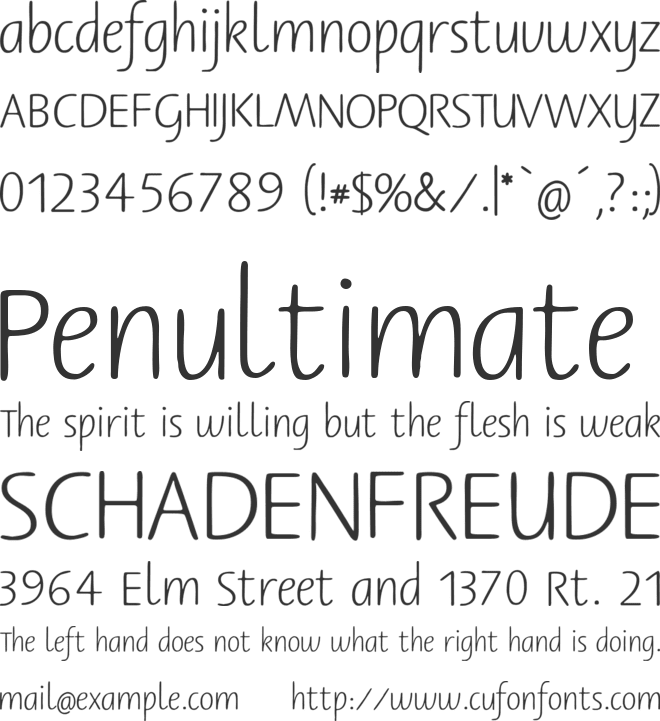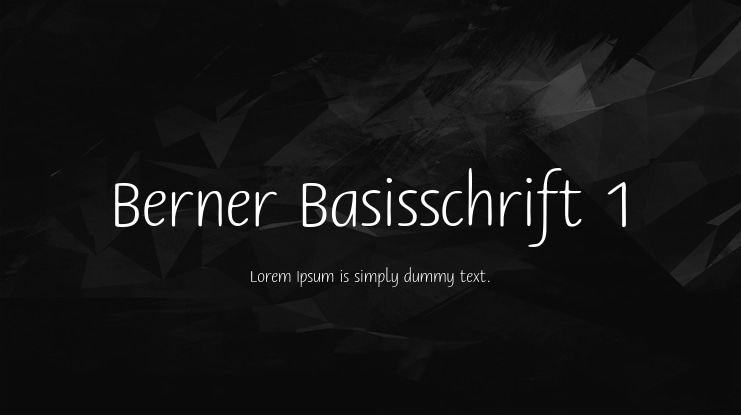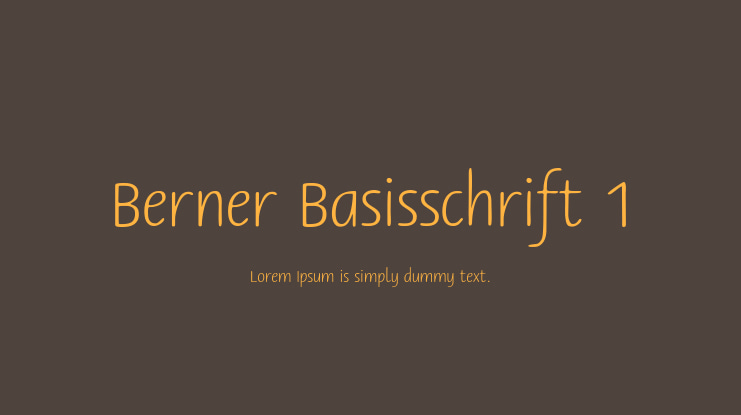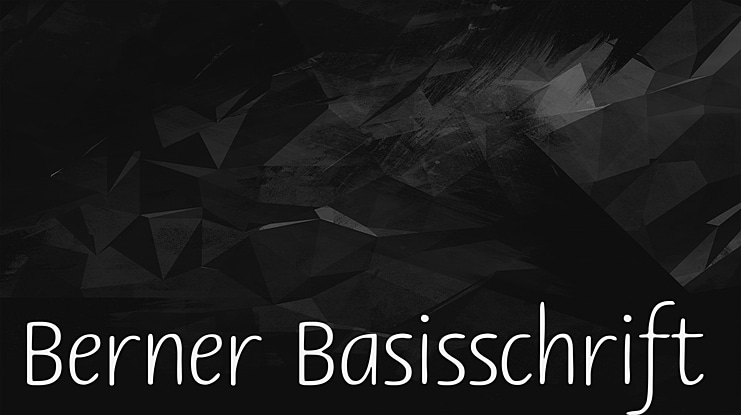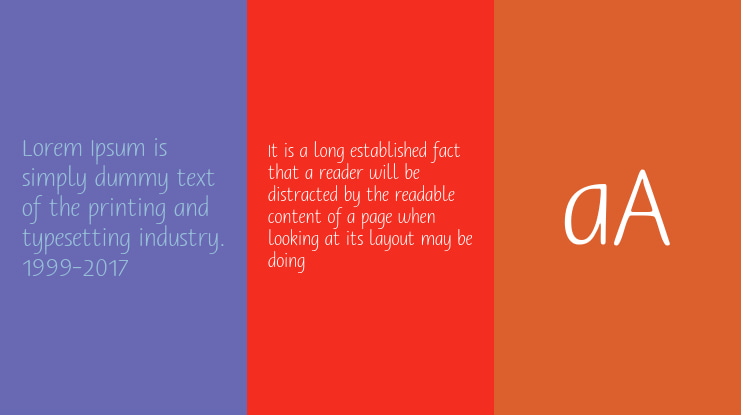
Berner Basisschrift 1 Font Family
this statement Heinrich von Sybel follows the concept of basic or Grundschrift.Es is no longer a rigid and completely connected cursive taught which is compulsory for all students, but starting with a quite handwritten acting simple sans serif, which passes gradually to an associated handwriting. From what the pupils themselves therefrom can develop a part connected cursive. Here, compounds and written there, where they develop from the natural flow of the manuscript. This Swiss form goes here but a little further. Starting with the pure document variant font added in the second class, introductory and final bows efügt which lead to compounds out. The signature of the third grade, I however do not offer here, then already equipped with the appropriate easy to write compounds wherein the font is designed so that they are easier circling with or counterclockwise movements can be carried out equally with the right as the left-hand and also equally of students. Alternatives will be offered also in the compounds. As I said, I provide only the first two fonts, so the simple basic shape for the first class and by introductory paint and final reason bows to related correspondence towards conducting form. Whether I also then part associated signature sales, although not then suitable for any software because it must contain OpenType features, and whether I will then offer it here, I know to not yet.